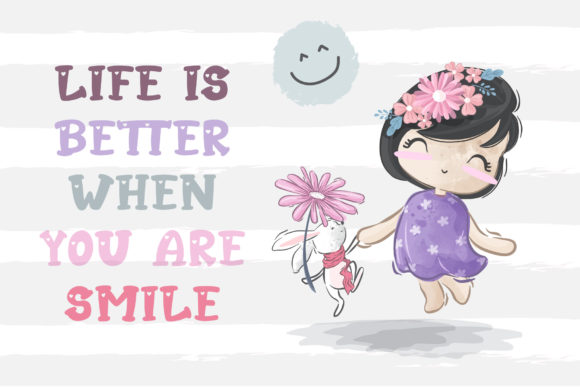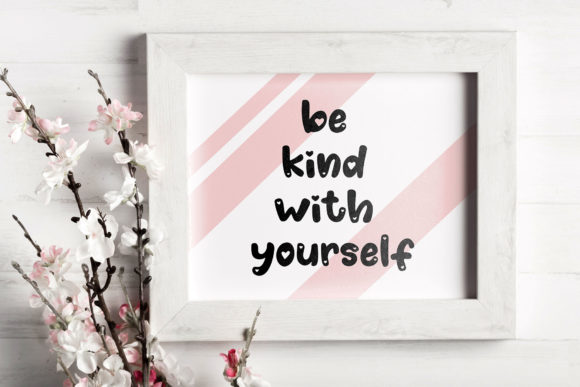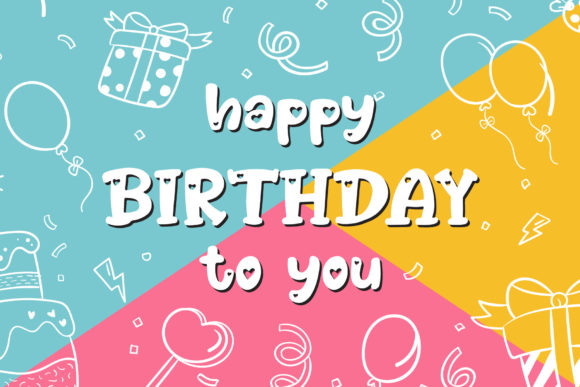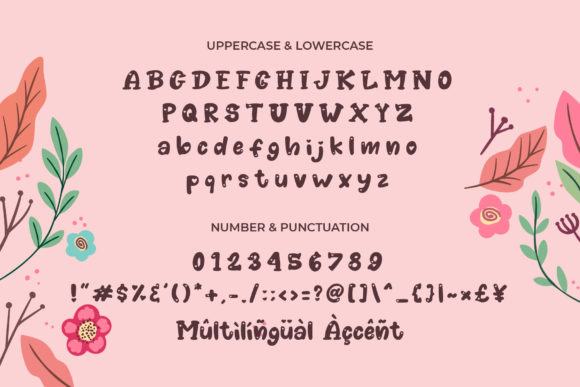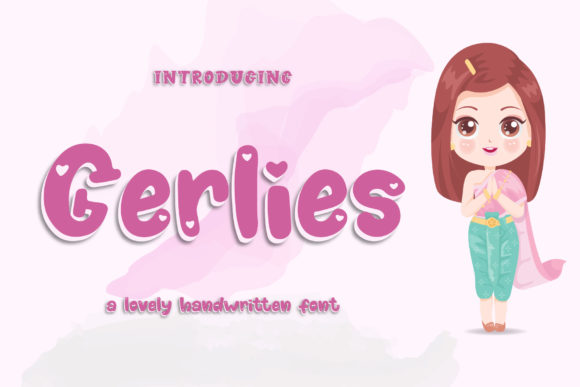
Introducing Gerlies Font: The Perfect Addition to Your DIY Projects
Are you a crafter, DIY enthusiast, or designer looking for a unique and versatile font to elevate your projects? Look no further than Gerlies Font! This clean and soft display font is specifically designed to add a touch of personality to your crafty DIY projects, Cricut designs, logos, branding, social media, and more.
What Makes Gerlies Font So Special?
Gerlies Font is a one-of-a-kind display font that boasts a clean and soft aesthetic, making it perfect for a wide range of applications. Its unique design ensures that your projects stand out from the crowd, while its versatility allows you to use it across various mediums. Whether you’re creating a logo, crafting a social media post, or designing a brand identity, Gerlies Font is the perfect fit.
Perfect for Crafty DIY Projects
As a crafter or DIY enthusiast, you know how important it is to have a font that complements your handmade projects. Gerlies Font is designed to add a touch of whimsy and personality to your creations, making them truly special. From Cricut designs to handmade cards and gift tags, Gerlies Font is the perfect choice. Its clean and soft design ensures that your projects look professional and visually appealing, while its unique style adds a touch of personality.
Elevate Your Logos and Branding
When it comes to creating a logo or brand identity, the font you choose can make all the difference. Gerlies Font is designed to help you create a unique and memorable brand identity that sets you apart from the competition. Its clean and soft design makes it perfect for use in logos, while its versatility ensures that it can be used across various mediums, from business cards to website headers.
Perfect for Social Media
In today’s digital age, social media is an essential part of any brand’s marketing strategy. Gerlies Font is designed to help you create visually appealing social media posts that grab attention and engage your audience. Its clean and soft design makes it perfect for use in social media graphics, while its unique style adds a touch of personality to your posts.
Why Choose Gerlies Font?
So why choose Gerlies Font over other fonts on the market? Here are just a few reasons:
• Unique Design: Gerlies Font boasts a unique design that sets it apart from other fonts on the market.
• Versatility: Gerlies Font is versatile and can be used across various mediums, from logos to social media posts.
• Clean and Soft: Gerlies Font features a clean and soft design that makes it perfect for use in a wide range of applications.
• Easy to Read: Despite its unique design, Gerlies Font is easy to read, making it perfect for use in body text and headlines.
In conclusion, Gerlies Font is a unique and versatile display font that’s perfect for crafty DIY projects, Cricut designs, logos, branding, social media, and more. Its clean and soft design makes it easy to read, while its unique style adds a touch of personality to your projects. Whether you’re a designer, crafter, or DIY enthusiast, Gerlies Font is a must-have addition to your font collection.